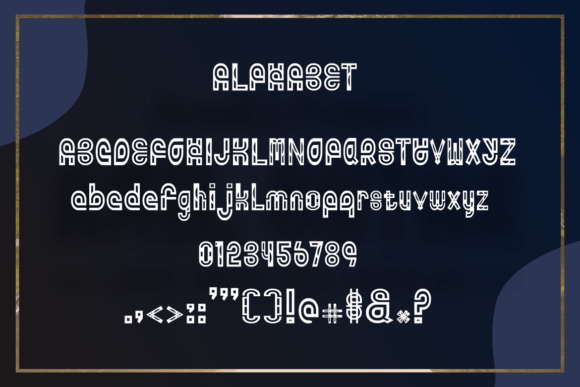
Introduction to Rockyd off Font
Have you ever found yourself staring at a blank canvas, trying to spark that creative flame? For designers, it’s a moment we’ve all been in – the thrill of a new project, the pressure to deliver, and the need for that perfect font to bring it all together. That’s where Rockyd off Font comes in – a game-changing display font that’s sure to elevate your design to the next level.
With its mesmerizing characters and unique shape, Rockyd off Font is a design resource that’s guaranteed to make an impact. Whether you’re working on a creative project that requires a touch of sophistication or simply want to add some visual interest to your design, this font is a valuable asset that’s sure to impress.
Key Features of Rockyd off Font
- Unique, hand-drawn style with a transparent background for versatility
- Supports a wide range of languages, making it suitable for international creative projects
- Designed for use in various design applications, including graphic design, web design, and more
Honest Review: Rockyd off Font
As a designer, I’m always on the lookout for high-quality design resources to elevate my creative projects. Recently, I stumbled upon the Rockyd off Font, and I’m excited to share my honest review.
Here’s what works well: ✨ The font is incredibly versatile, with a wide range of styles and weights that make it perfect for both digital and print projects. The transparent background is a nice touch, allowing for easy customization and flexibility. Plus, the font is free to download, which is a major bonus for designers on a budget.
Here are some of the font’s key features:
- Wide range of styles and weights
Overall, I’d give the Rockyd off Font a solid 4 out of 5 stars. While it’s not perfect, it’s a great addition to any designer’s toolkit, and the free download makes it a no-brainer for anyone looking to spice up their creative projects.
How to Use Rockyd off Font
Rockyd off Font is a high-quality design resource ideal for creative projects requiring a unique and eye-catching style. Its transparent background makes it easy to integrate into various designs.
Tips for Getting the Most Out of Rockyd off Font
To get the most out of Rockyd off Font, use it in combination with other design elements to create a cohesive look. Experiment with different colors, sizes, and styles to find the perfect balance.
Rockyd off Font is ideal for use in logos, branding materials, social media graphics, and any other creative project where a unique and eye-catching font is needed.